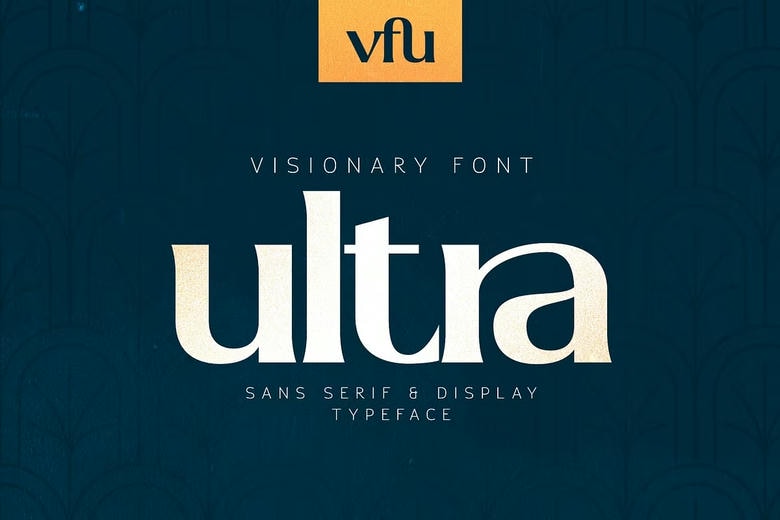
Vfu Font Family
VFU (Visionary Font Ultra) is a family of nine sans serif styles, nine matching italics, plus one very special display font. Mainly targeting modern and creative designs, VFU provides the Latin, Cyrillic and Bulgarian Cyrillic script, which are enabled design variations and additional ligatures & alternates. Designed for headers, logos, and newsweek headlines, this typeface sails the futuristic vision in layouts.